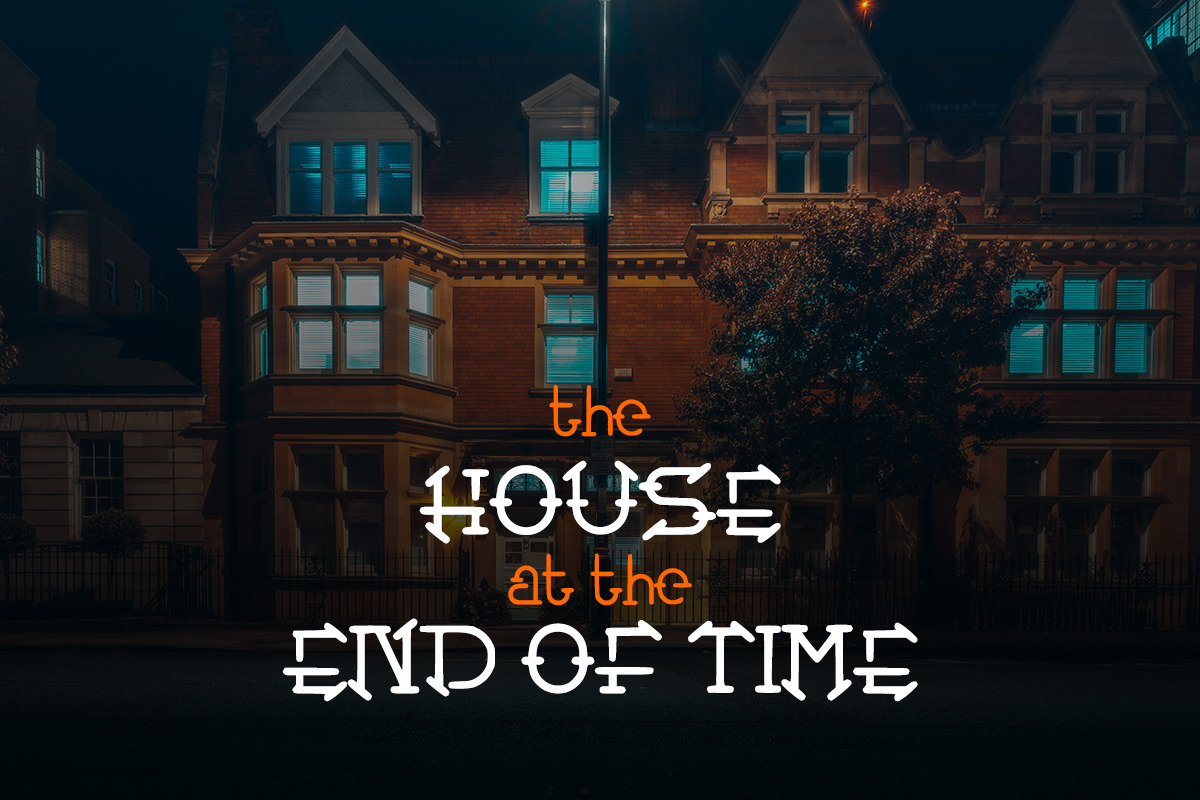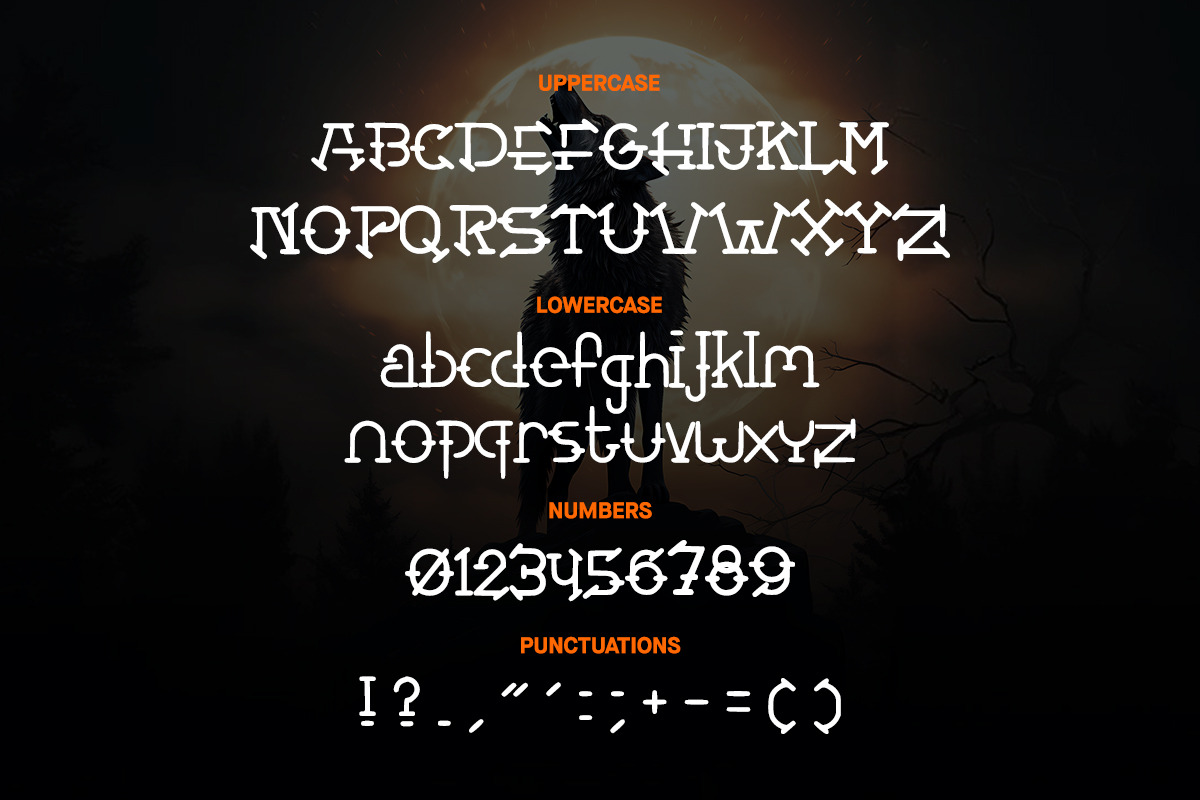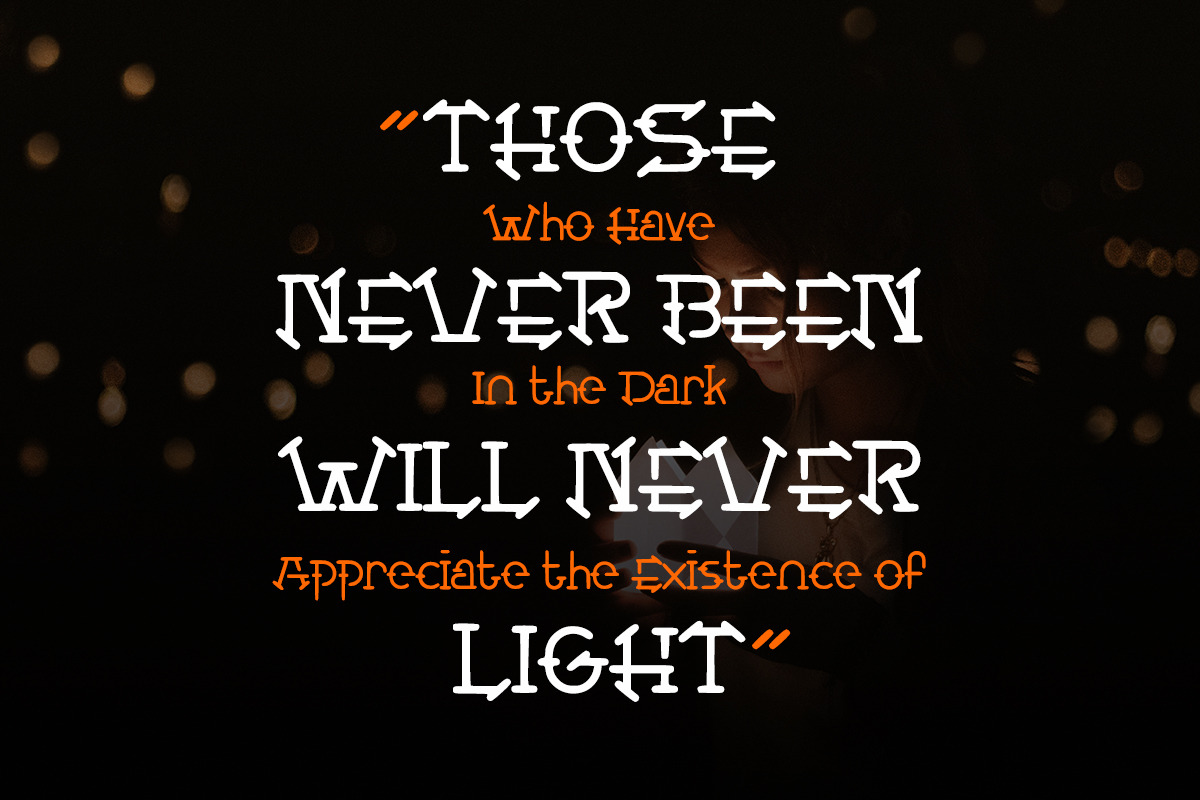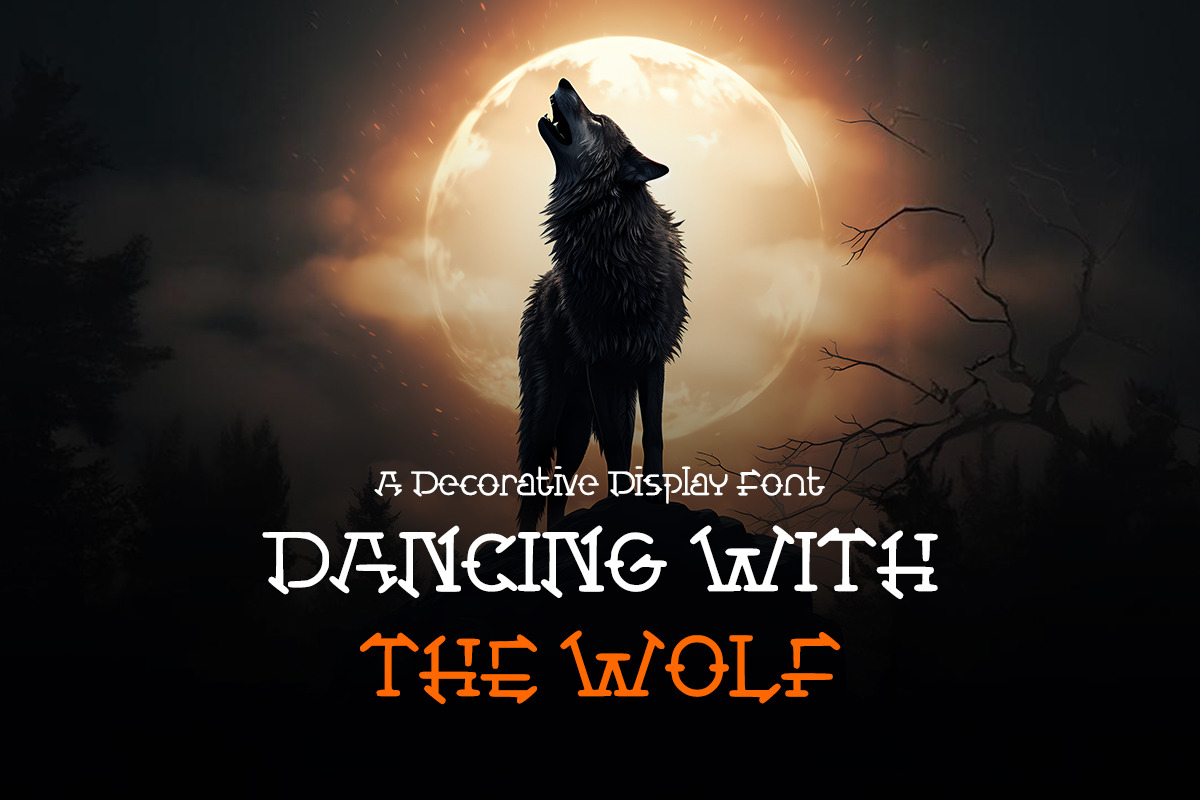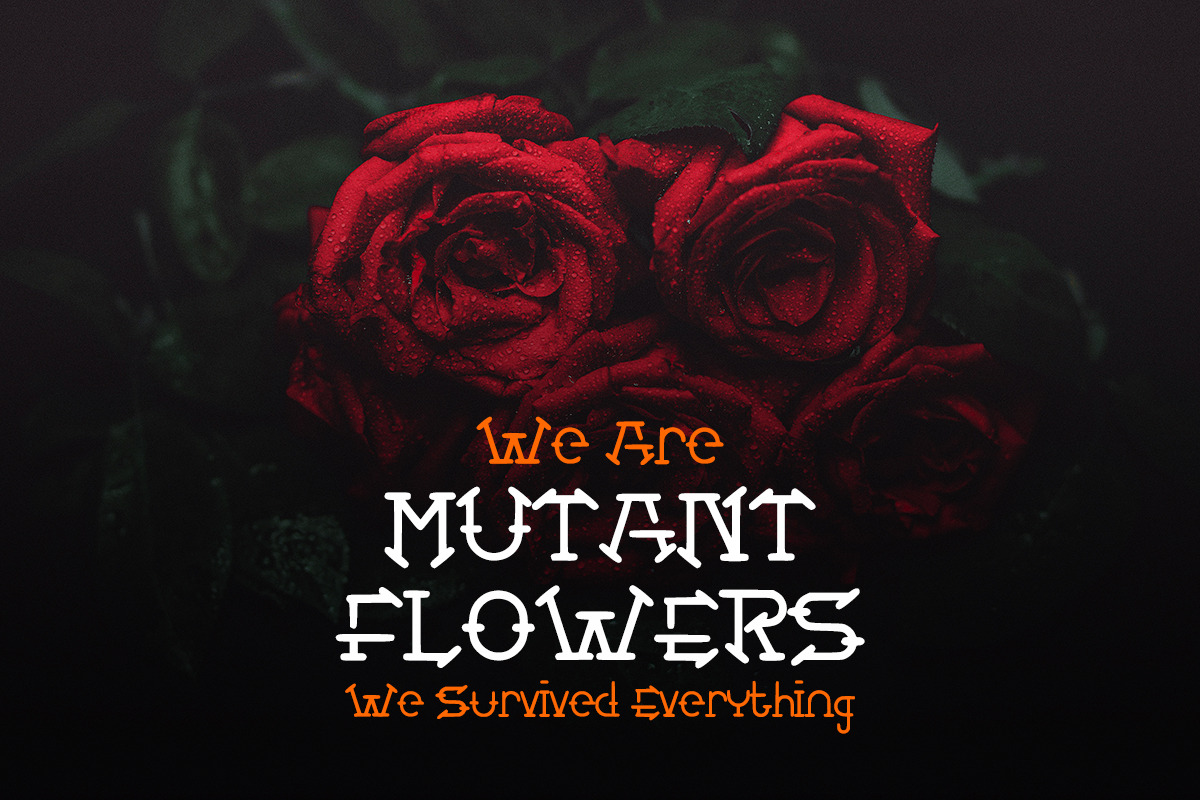
Dancing With The Wolf Typeface
Introducing Dancing With The Wolf, a fun, decorative display font with cartoony, fun, and creative vibes. Use it for logos, CD covers, book cover titles, movie posters, games, animations, clothing, badges, labels, etc. Oblivion Future contains: uppercase, lowercase, numbers, and punctuation